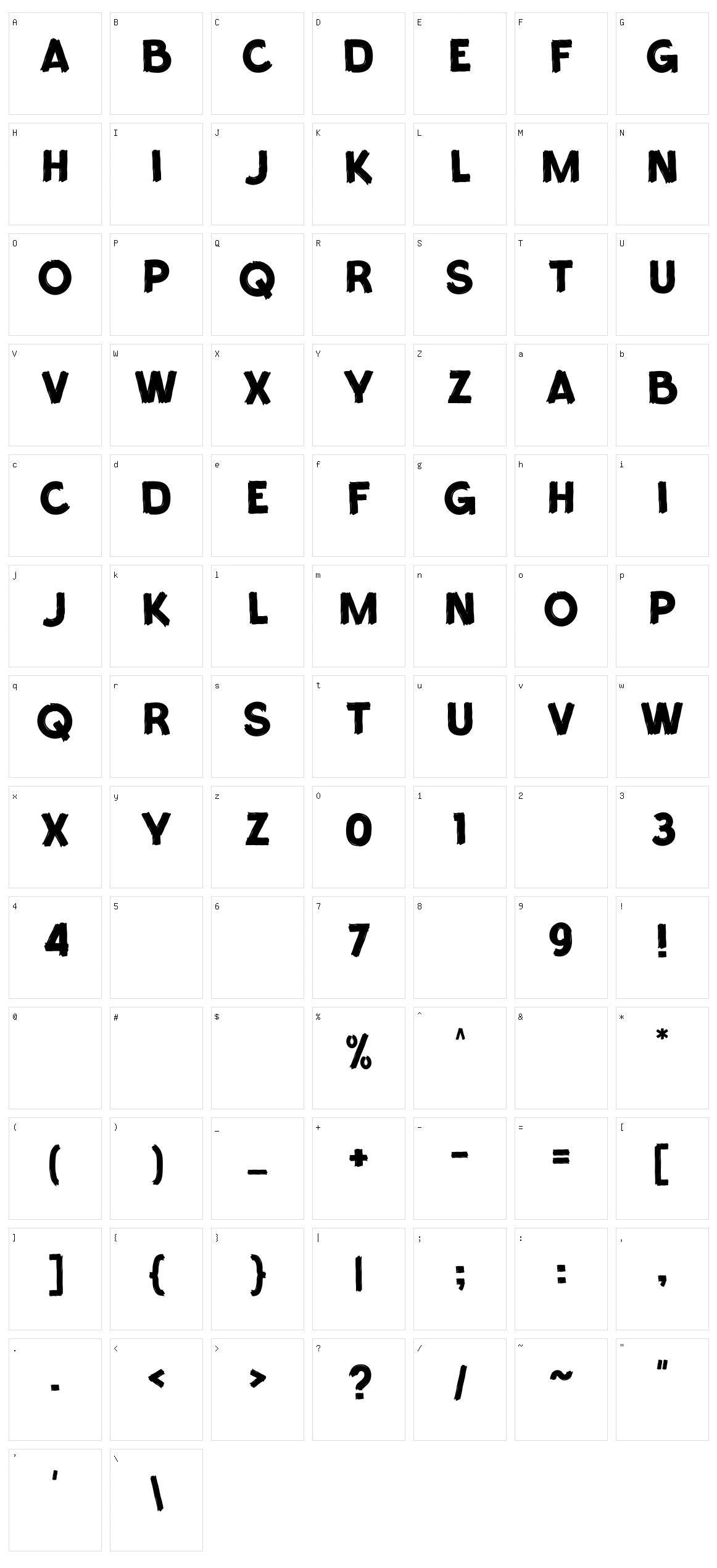
The free font Santerian is carefully designed by Gassstype, showcasing a thoughtful balance of creativity and usability and falls under the Script font style. When you download the ZIP file, it contains only 706.7 KB of font files, making it lightweight and quick to download. Please review the license details below to understand permitted usage and distribution rights. If license information is not available, we recommend using this font for personal projects only or contacting the author directly for commercial usage permissions.